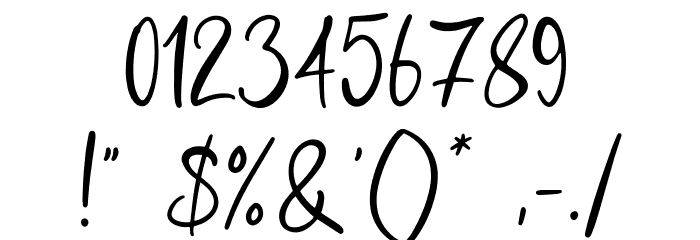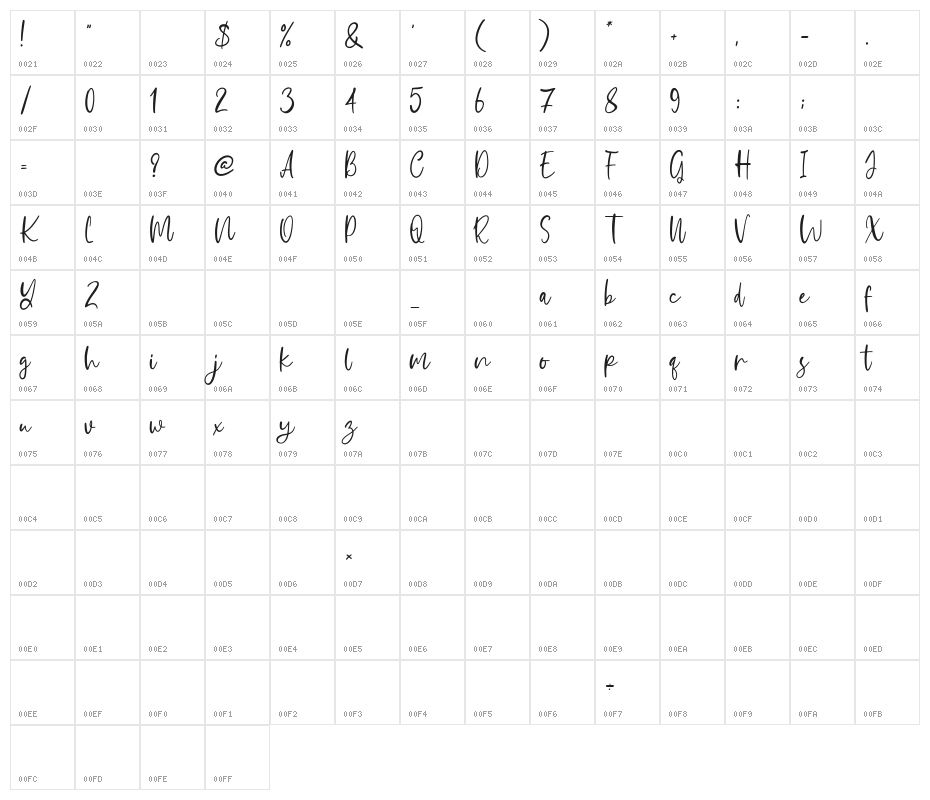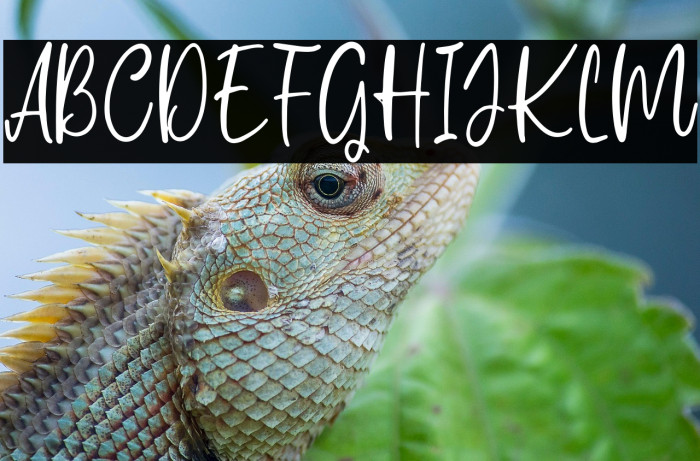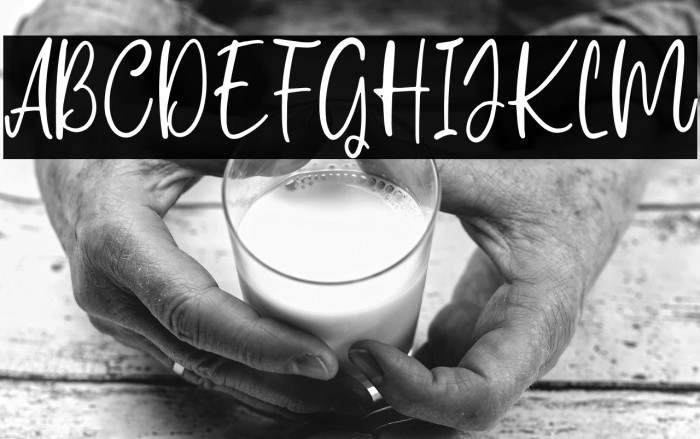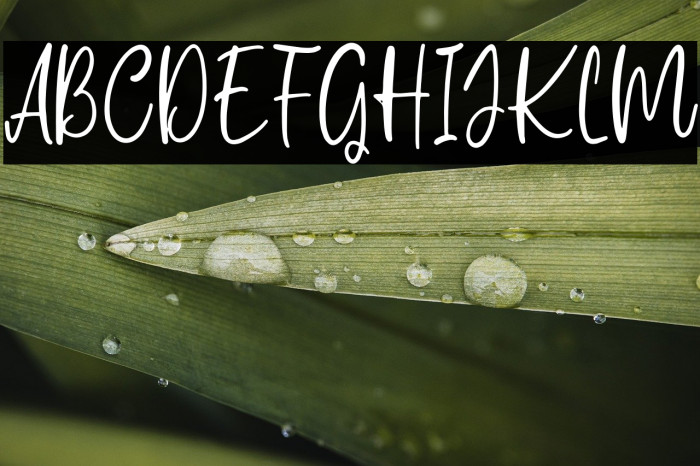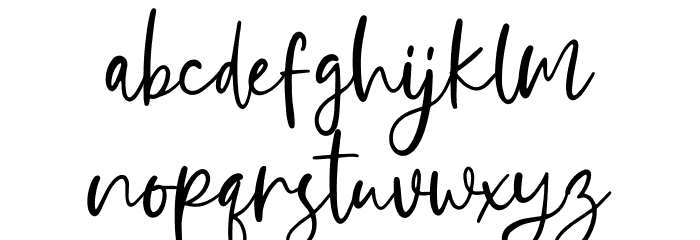
Carolina Smile Font
Carolina Smile Description
This font features a playful and casual handwritten style with a smooth flow and rounded edges. The uppercase letters are tall and slightly narrow, giving a sense of elegance and sophistication. The lowercase letters maintain a consistent style with a slight slant, enhancing the handwritten feel. Numbers and special characters are designed to match the overall aesthetic, ensuring a cohesive look across all text. The strokes are moderately thick, providing good readability while maintaining a friendly and approachable appearance.
| Use Case | Logos, Headlines, Social Media |
| Proposed Projects | Ideal for greeting cards, invitations, personal branding, and social media graphics. |